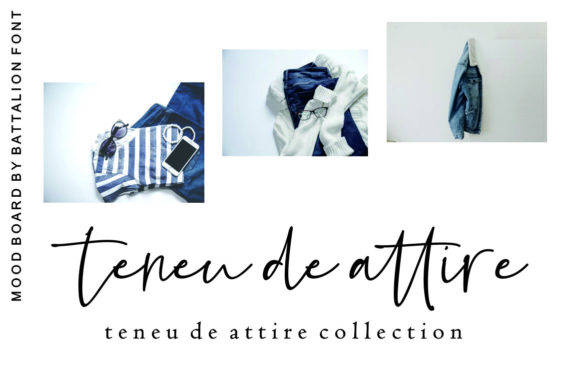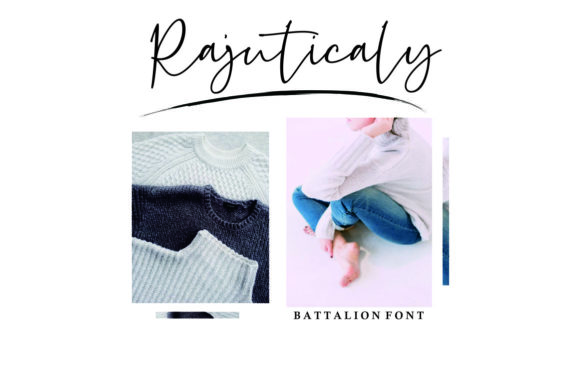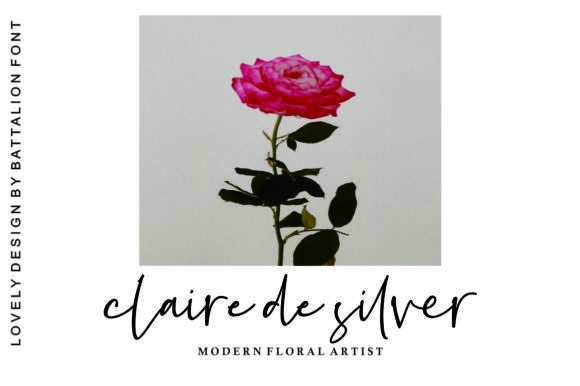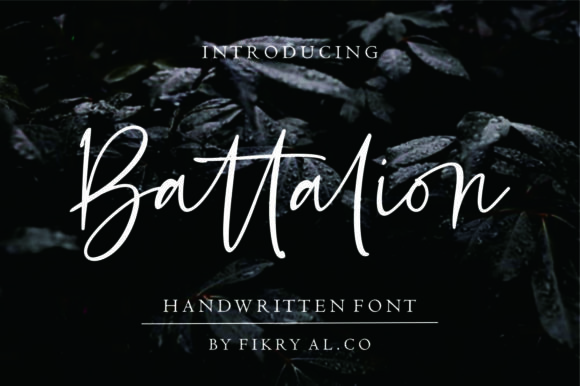
Introduction to Battalion Font
The Battalion is a beautiful handwritten font.
It includes amazing ligatures and alternates with an elegant style It’s suitable for logos, branding, quotes, magazines, signatures, banners, posters, and much more.
Battalion Font offers exceptional quality and versatility, making it a valuable addition to your design toolkit. Whether you’re creating for personal projects or commercial use, Battalion Font delivers professional results.